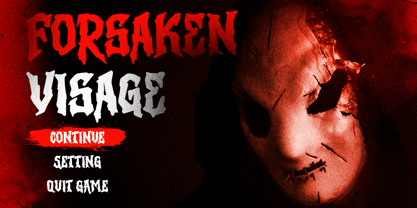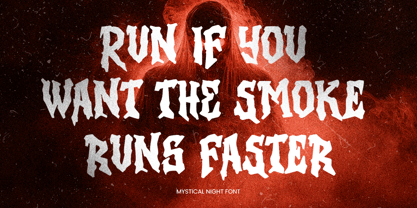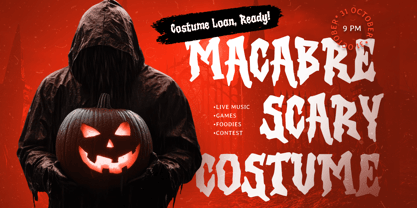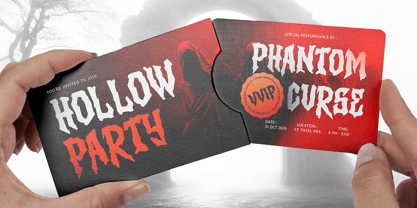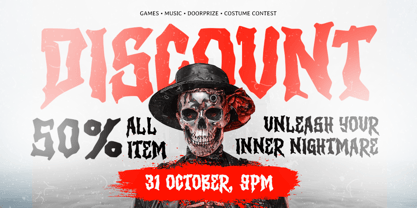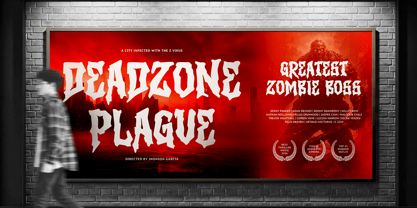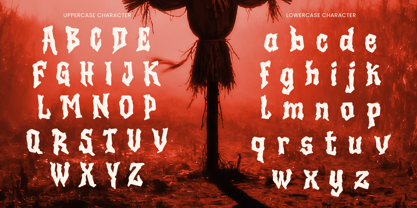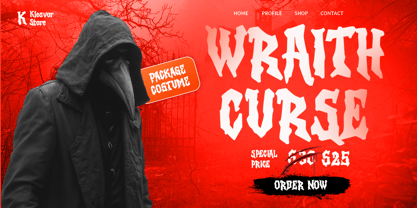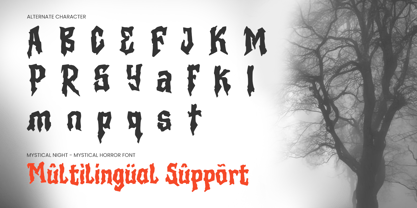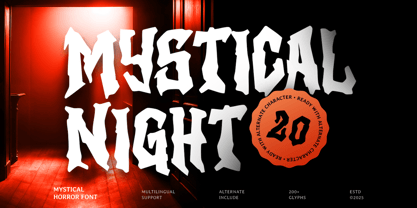
MYSTICAL NIGHT is a mystical horror font crafted to evoke dark atmospheres, supernatural energy, and spine-chilling visuals. With its eerie letterforms and haunting style, this font brings a sense of mystery, fear, and fantasy into every design, making it perfect for horror-themed and occult-inspired projects.
Designed for maximum impact, MYSTICAL NIGHT works beautifully on movie titles, Halloween posters, game graphics, book covers, and dark branding. Its unique shapes and unsettling aesthetic create a dramatic presence that captures attention instantly, whether used for digital screens or printed media.
Perfect for horror creators, filmmakers, and designers who want to build an immersive and mysterious visual identity, MYSTICAL NIGHT delivers a powerful combination of cinematic horror and mystical fantasy style.
MYSTICAL NIGHT – Mystical Horror Font Features
Eerie and mystical horror-style letterforms
Perfect for Halloween, horror, and thriller projects
Ideal for posters, movie titles, and game design
Includes uppercase, lowercase, numerals, and punctuation
Strong visual impact for digital and print media
OpenType features for creative typography
Great for branding, covers, and cinematic visuals
Multilingual Support
Unleash haunting creativity with MYSTICAL NIGHT – the ultimate font for dark, mystical, and horror-driven designs. 🌙
Mystical Night